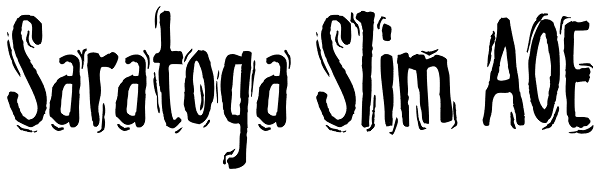
Saratoga Slim AOE
He's rough around the edges, but he's an outlaw from the Old West, what did you expect? He's Saratoga Slim, a playful shaken up dust devil of a typeface. With a shaken appearance and rough hewn letters, he steps onto the scene, yet is clearly...